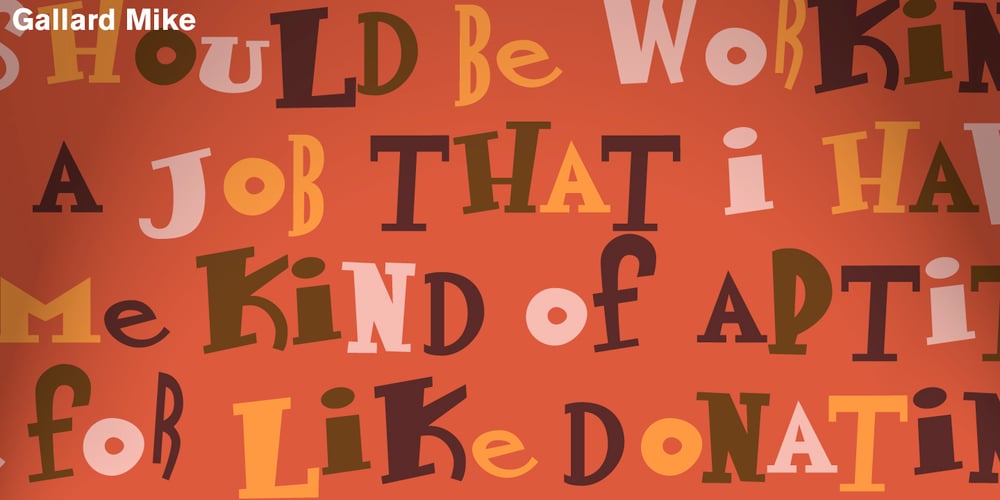
Gallard Font Family was designed by Laura Meseguer, Miguel Gallardo and published by Type-Ø-Tones. Gallard contains 3 styles and family package options. Gallard is a two weights family that contains the display type of the great cartoonist and illustrator Miguel Gallardo. In addition, as we usually do for this kind of author fonts, there is a collection of drawings called Victims.